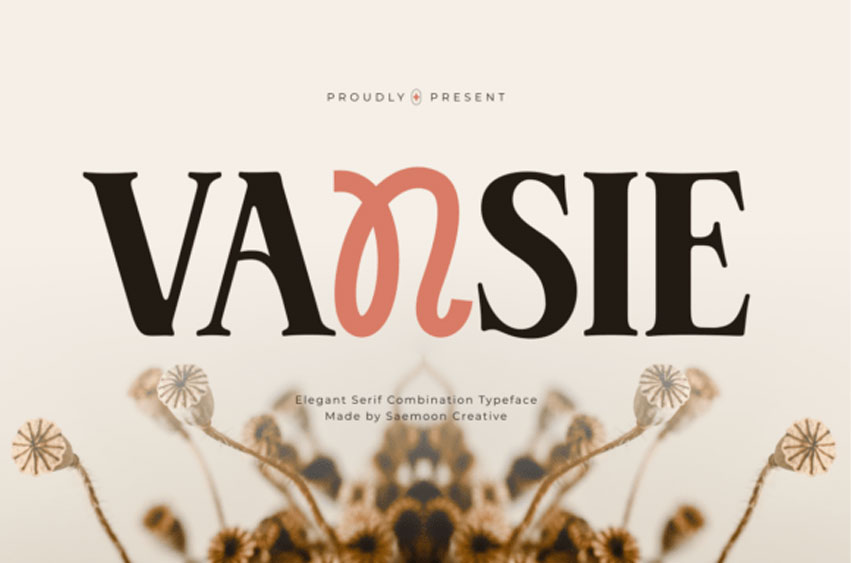
Vansie Font
Vansie Font is an exquisite serif typeface graced with a modernistic essence. Vansie artfully marries the classical elegance of Serif with a fresh, contemporary flair, facilitating a strikingly distinctive touch to your ventures.
Whether you’re crafting logos, honing magazine headlines, refining brand identities, or designing packaging, Vansie infuses an appealing sophistication into your creations.